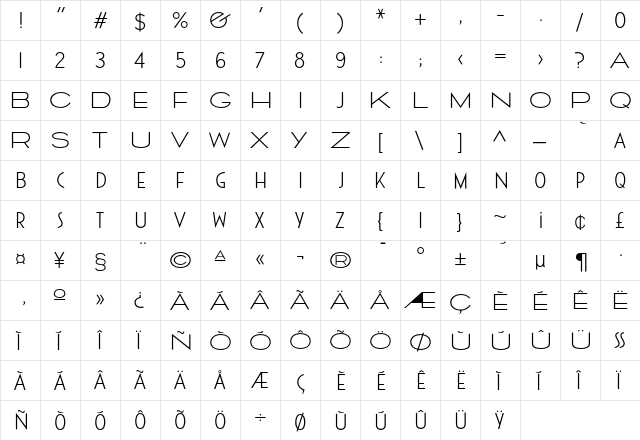
CassandraEF Light
Design Context for CassandraEF Typeface
CassandraEF is a composed and adaptable typeface that performs quietly and consistently across a wide range of design contexts. The delicate stroke weight brings airiness and refinement to layouts.
Pro Tip: Pair CassandraEF with a font of contrasting weight or personality to build a more expressive typographic hierarchy.